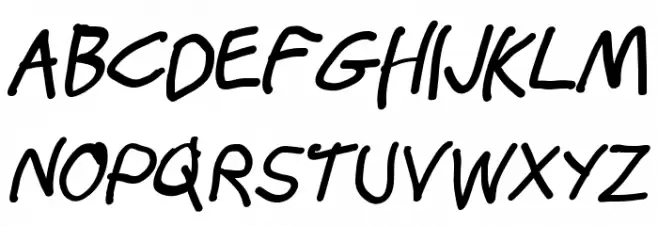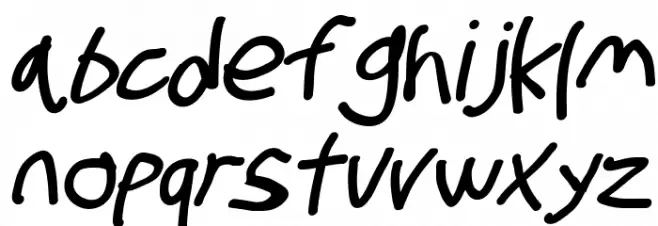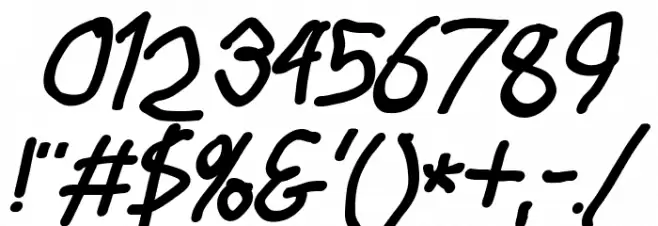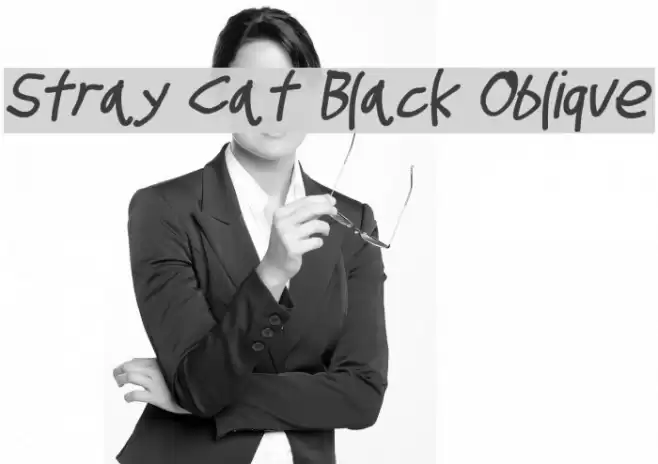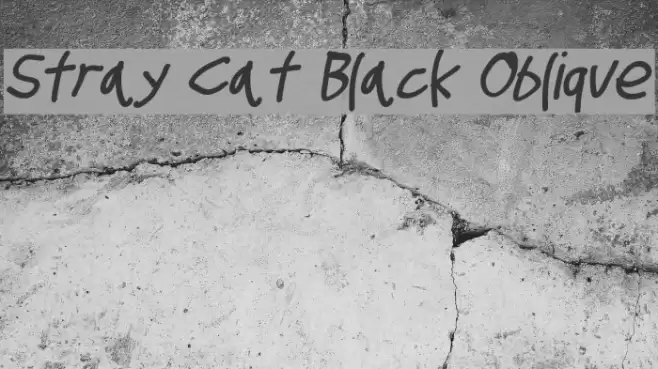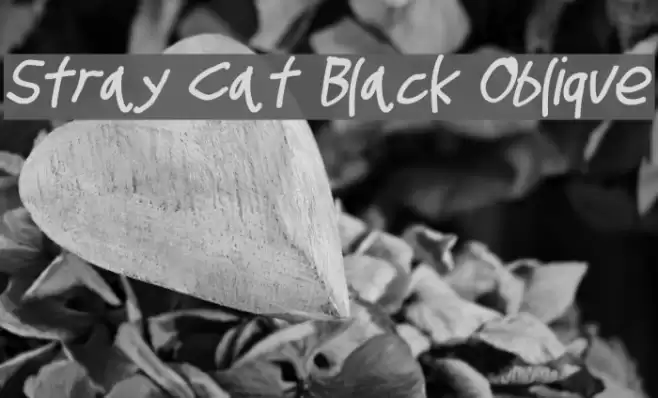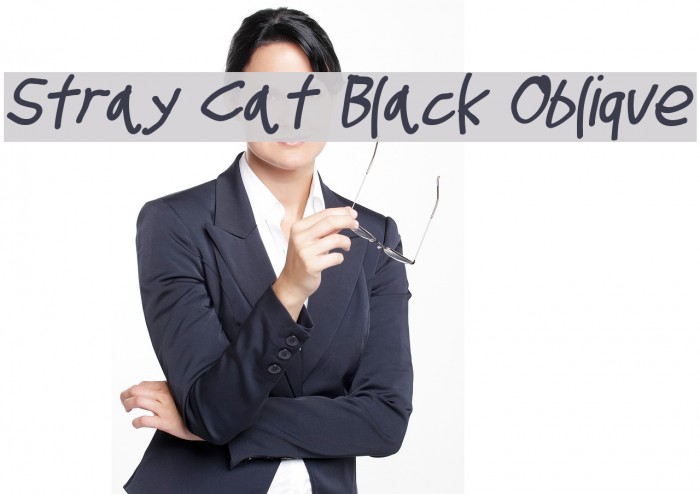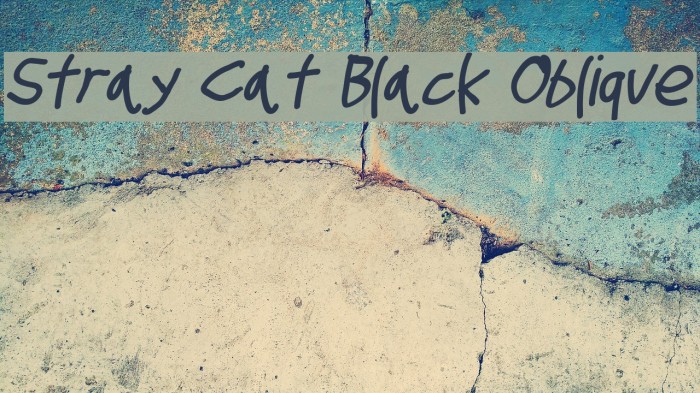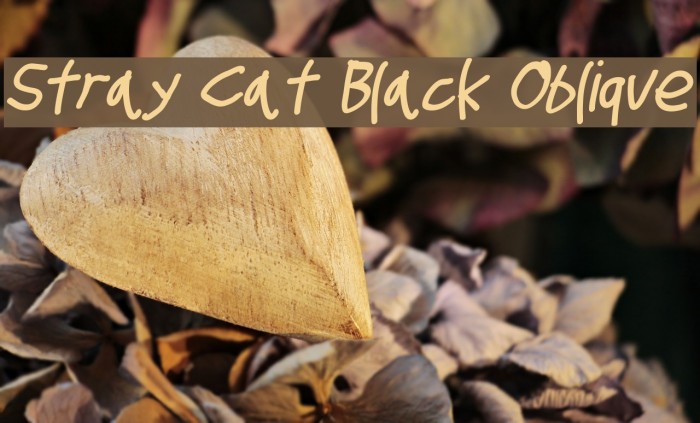
Stray Cat Black Oblique
This font exudes a playful and informal style, characterized by its handwritten appearance. The letters are slightly slanted, giving an oblique effect that adds dynamism and movement. The strokes are bold and consistent, with a casual, free-flowing form that mimics natural handwriting. Each character is distinct, with rounded edges and a slightly uneven baseline, enhancing its organic feel. The numbers and special characters maintain the same lively and informal style, making the font versatile for various creative applications.
A playful, handwritten font with bold, oblique strokes.
- Proposed Projects: Ideal for creative projects such as greeting cards, children's books, casual branding, and social media graphics.
- Overall Style: Casual
- Use Case: Headlines, Informal text, Creative projects